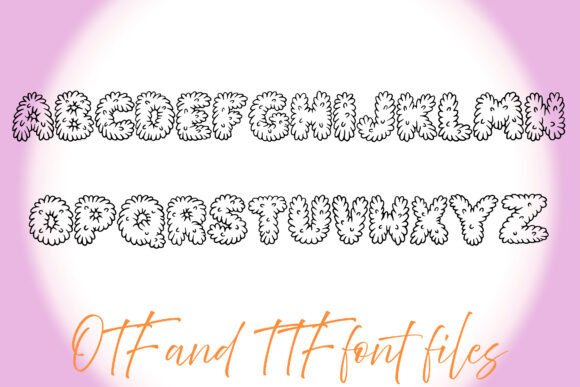
Introducing Fluffy Feather Font: The Softest, Quirkiest Typeface You’ll Ever Meet
Are you tired of using the same old boring fonts for your creative projects? Look no further! We’re thrilled to introduce you to Fluffy Feather Font, a delightful typeface that’s as soft as a cloud and bursting with personality. This charming font is perfect for anyone looking to add a touch of whimsy and playfulness to their designs.
What Makes Fluffy Feather Font So Special?
- Unique Character Design: Each character in Fluffy Feather Font is carefully crafted to resemble a poofy plume, making it a standout from other fonts.
- Soft and Quirky: This font is designed to be soft, quirky, and full of personality, making it perfect for projects that require a playful touch.
- Highly Versatile: Fluffy Feather Font can be used for a wide range of projects, from children’s books and playful branding to dreamy craft projects.
10 Inspiring Ways to Use Fluffy Feather Font
- Children’s Books: Create engaging and interactive stories for kids with Fluffy Feather Font. Its playful design will surely capture their attention and imagination.
- Playful Branding: Add a touch of whimsy to your brand’s identity with Fluffy Feather Font. Perfect for businesses that cater to a young audience or want to convey a sense of fun.
- Dreamy Craft Projects: Use Fluffy Feather Font to add a personal touch to your craft projects, such as handmade cards, gift tags, and scrapbooking.
- Party Invitations: Create adorable party invitations that set the tone for a fun and festive celebration.
- Social Media Graphics: Add a playful touch to your social media graphics, such as quote graphics, Facebook posts, and Instagram stories.
- Blog Headers: Use Fluffy Feather Font to create eye-catching blog headers that reflect your blog’s personality.
- Email Newsletters: Add a touch of personality to your email newsletters with Fluffy Feather Font.
- Stationery: Create custom stationery, such as notebooks, journals, and stickers, with Fluffy Feather Font.
- Signage: Use Fluffy Feather Font for signage, such as welcome signs, directional signs, and menu boards.
- Packaging: Add a playful touch to your product packaging with Fluffy Feather Font.
Typographic Features of Fluffy Feather Font
Fluffy Feather Font comes with a range of typographic features that make it easy to use and customize. Some of its notable features include:
How Fluffy Feather Font Compares to Other Fonts
So, what sets Fluffy Feather Font apart from other fonts? Here’s a comparison:
| Font | Style | Personality |
|---|---|---|
| Fluffy Feather Font | Soft, quirky, and playful | Bursting with personality |
| Other Script Fonts | Elegant and sophisticated | Formal and traditional |
| Other Sans-Serif Fonts | Clean and modern | Neutral and straightforward |
What Users Say About Fluffy Feather Font